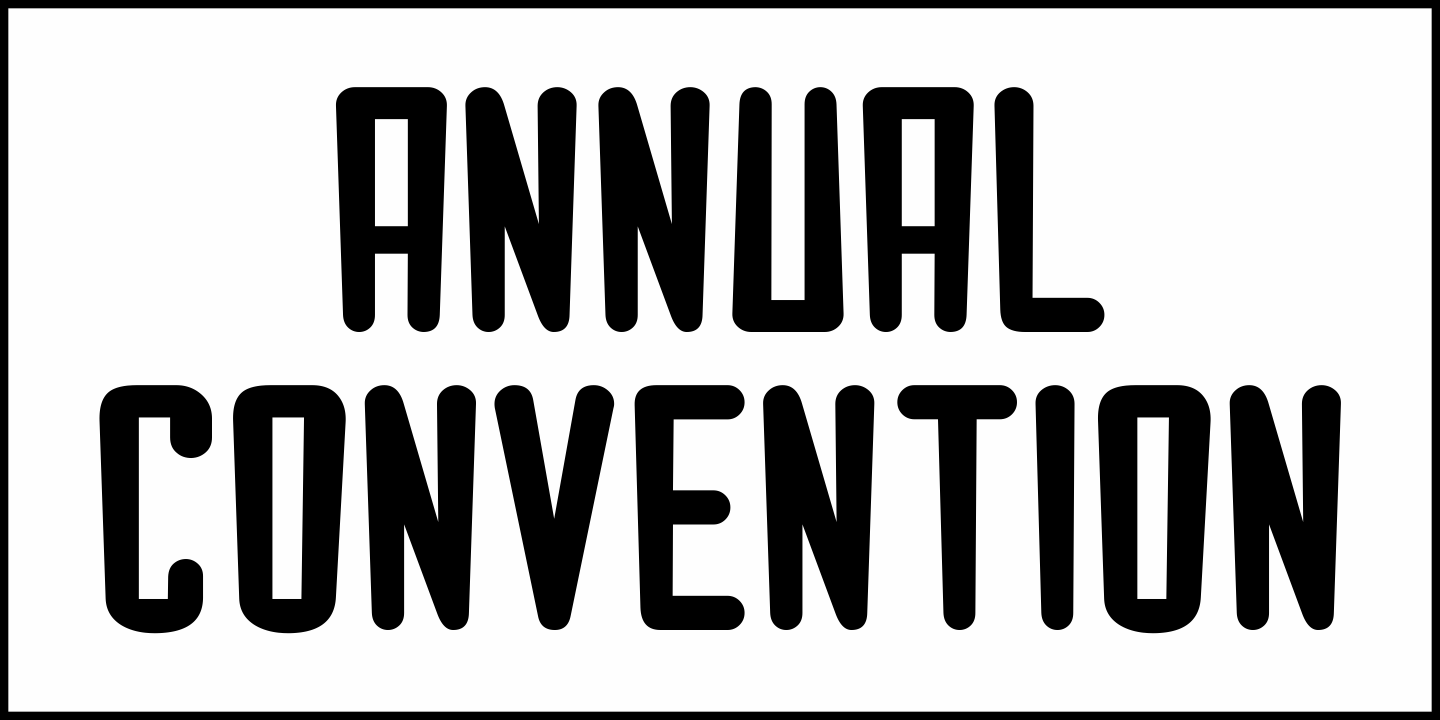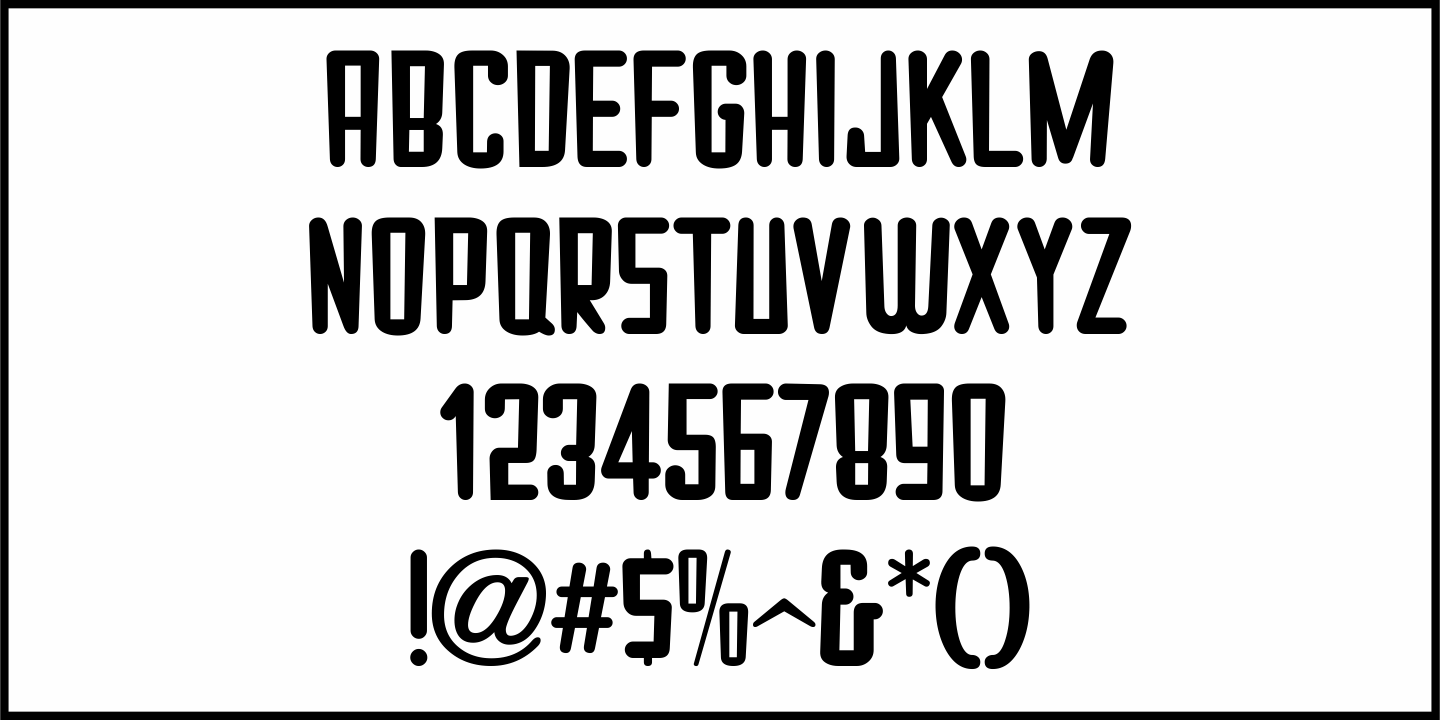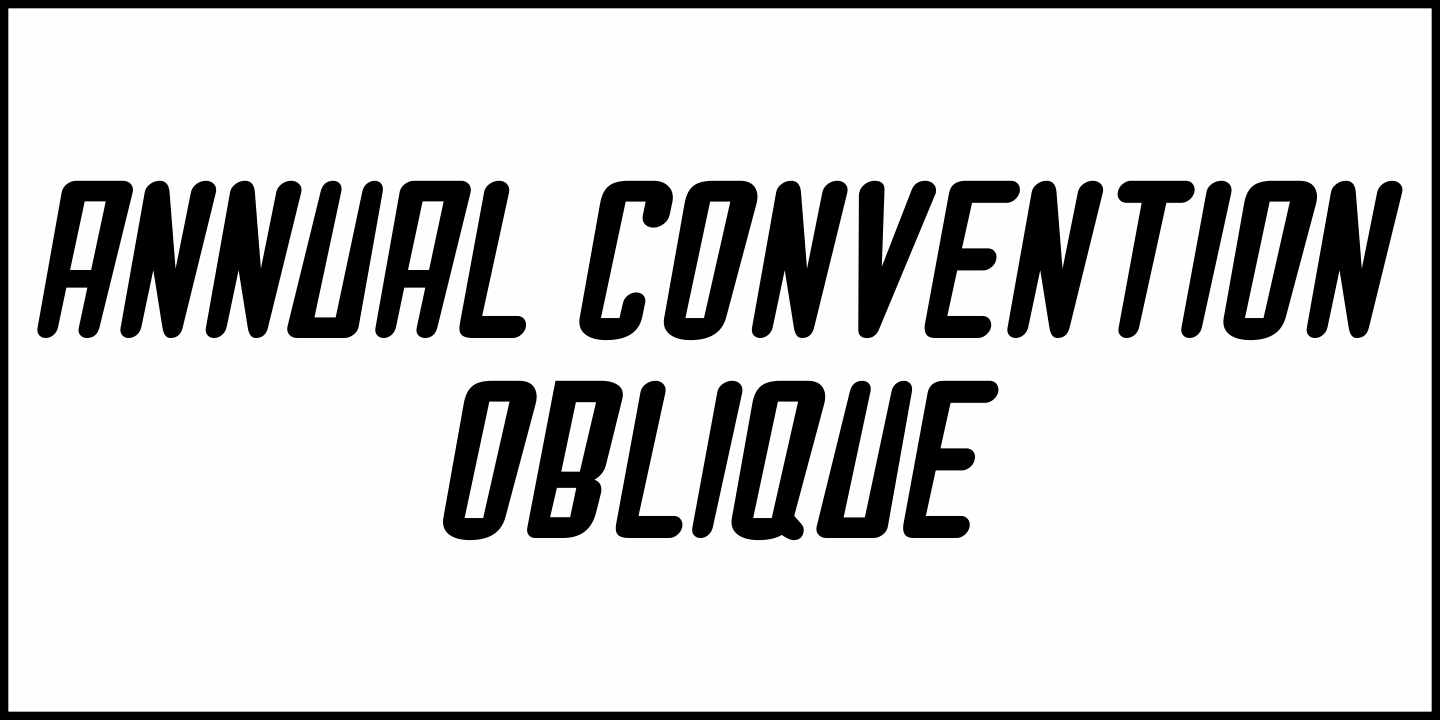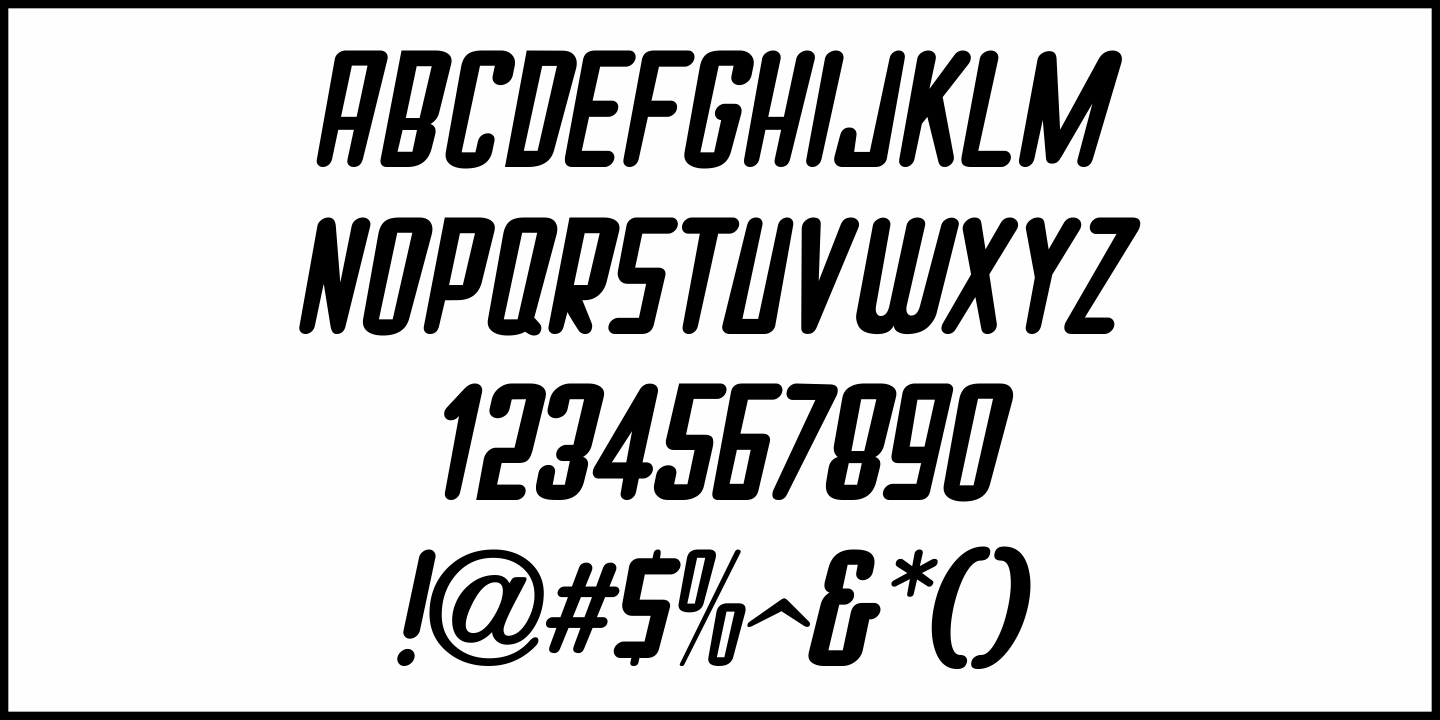
Annual Convention
In the February 6, 1961 issue of Boxoffice Magazine was an ad for an event entitled "Show-A-Rama" The 4th Theater Owners of America Convention.
The title for this announcement was hand lettered in a novelty sans serif with rounded corners and ends. The characters are generally wider at the top and tapering inward toward the bottom.
This unusual and playful type design is now available as Annual Convention JNL, in both regular and oblique versions.
Annual Convention JNL Oblique by Jeff Levine Fonts